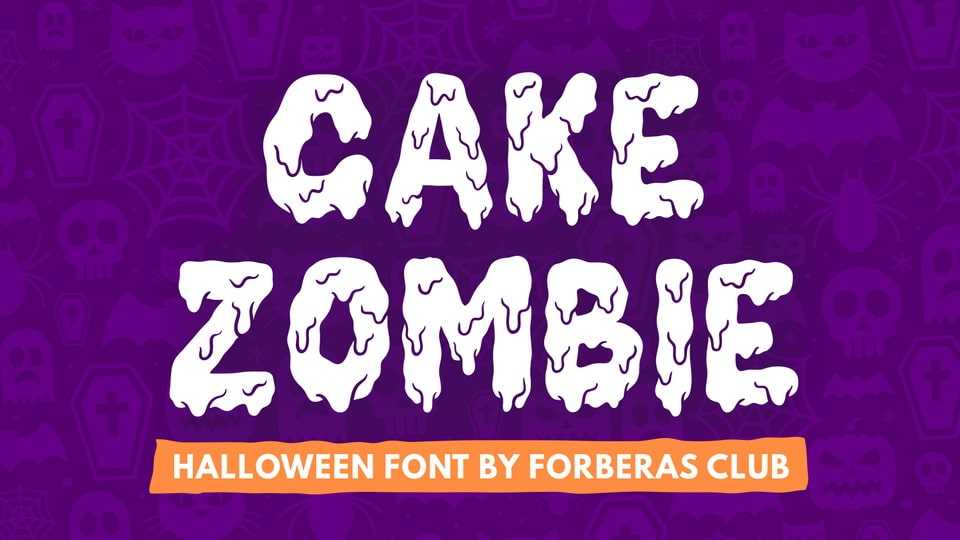
Download Cake Zombie font, a fun and spooky display typeface. With its scary vibe, Cake Zombie font is suitable for all your Halloween or horror-themed projects.